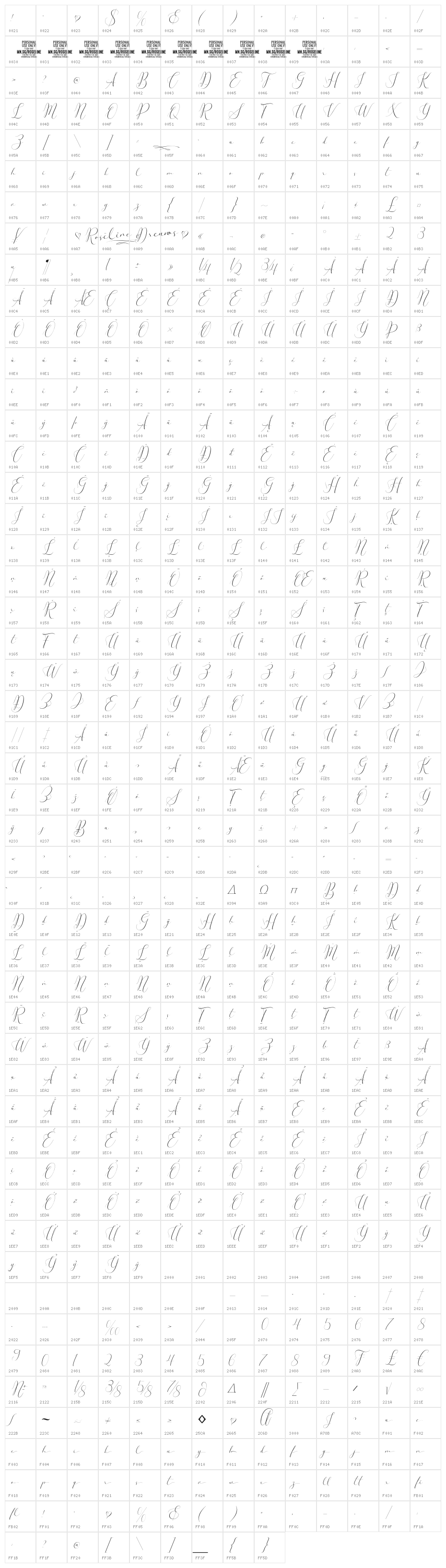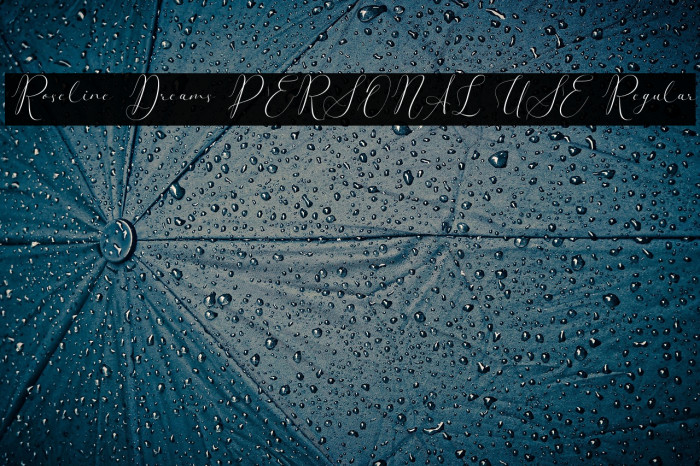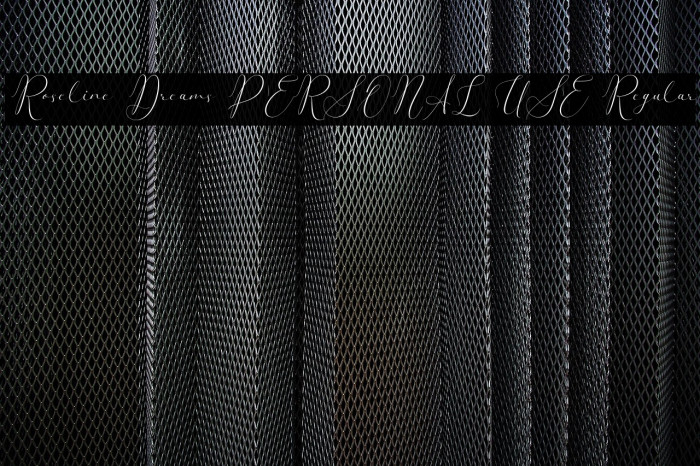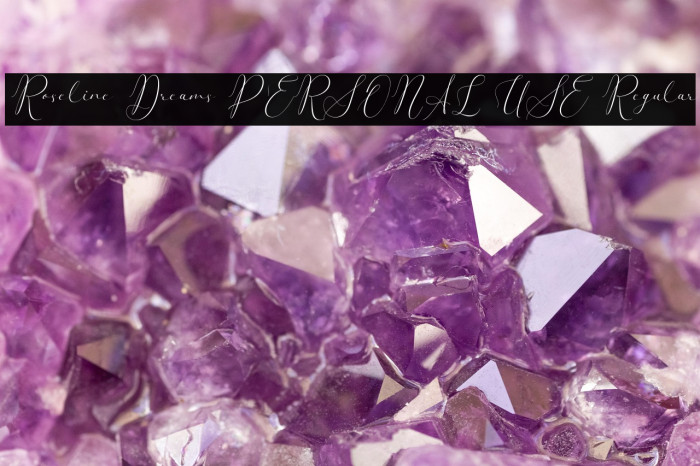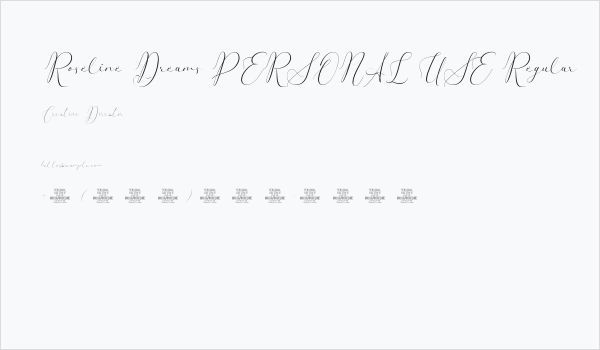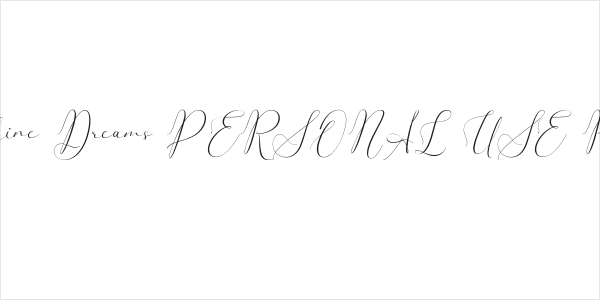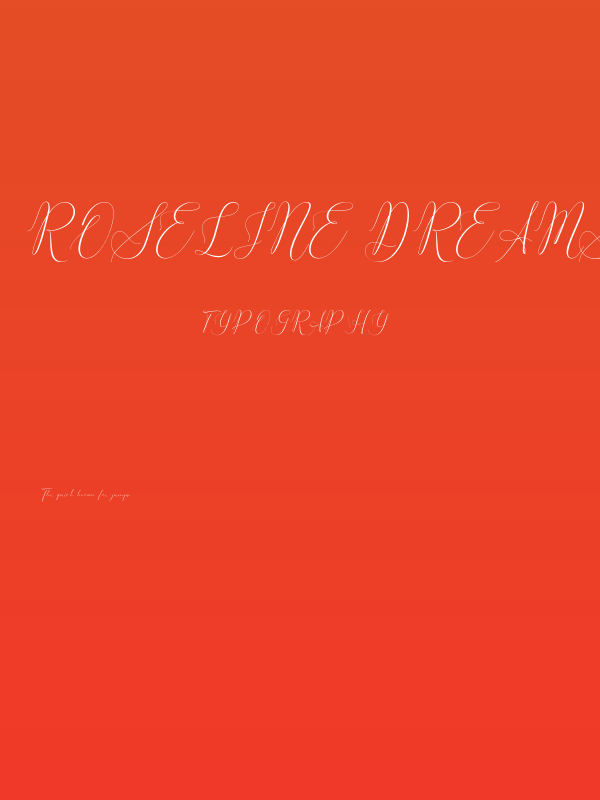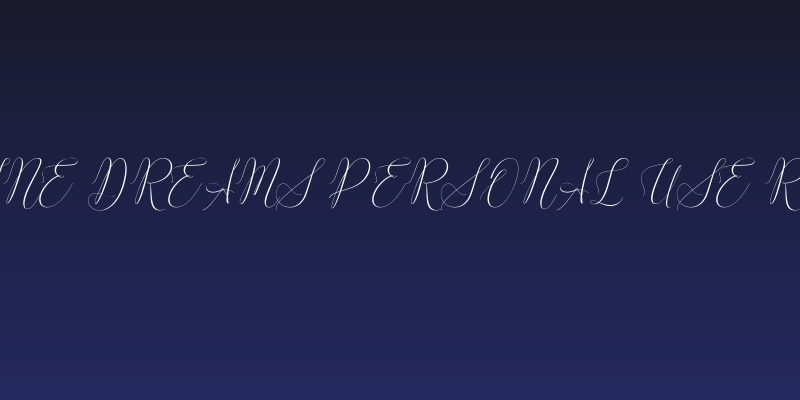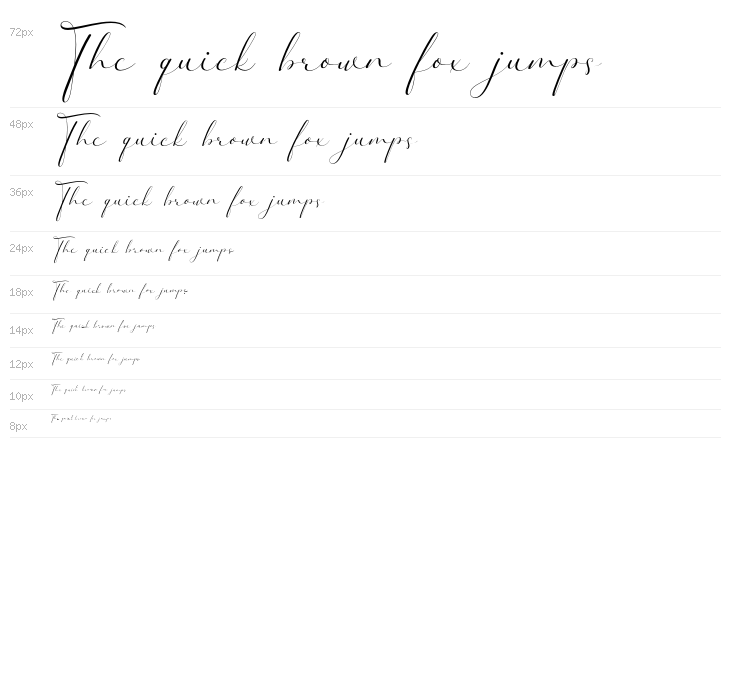
Roseline Dreams PERSONAL USE Regular Font
Roseline Dreams PERSONAL USE Regular Description
This elegant script font features flowing, cursive letterforms with delicate, sweeping strokes. The uppercase letters are ornate and expressive, with intricate loops and flourishes that add a touch of sophistication. The lowercase letters maintain a consistent style, offering a harmonious blend of curves and lines. The numerals are stylishly integrated, matching the overall aesthetic of the font. Special characters are designed with the same attention to detail, enhancing the font's versatility. This font exudes a sense of romance and elegance, making it ideal for projects that require a personal and artistic touch.
| Overall Style | Romantic and Elegant |
| Use Case | Headlines, Invitations, Branding |
| Proposed Projects | Ideal for wedding invitations, greeting cards, branding, and elegant packaging designs. |